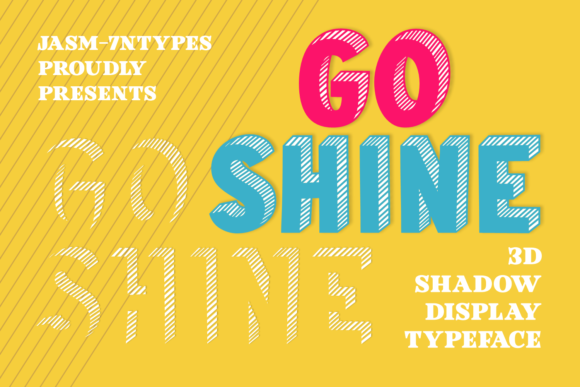
**Enter the realm of visual brilliance with Go Shine Font, a treasure trove of typographic delight!**
In a world of ordinary fonts, Go Shine Font emerges as a resplendent beacon of creativity, a symphony of visual aesthetics that will captivate your senses and leave you breathless. This extraordinary display font, meticulously crafted by the visionary artisans at 7NTypes, is more than just a collection of characters; it's an experience that ignites the imagination and sets your designs ablaze with radiant brilliance.
Go Shine Font is not merely a font; it's a gateway to a world of limitless creative possibilities. Its bold and colorful strokes dance across the page, evoking a sense of exuberance and joy that will elevate your designs to new heights of visual splendor. With its inherent versatility, this font seamlessly adapts to a myriad of creative endeavors, from eye-catching headlines that demand attention to captivating social media graphics that leave a lasting impression.
Unleash the boundless potential of Go Shine Font and witness the transformation of your creative vision into a breathtaking reality. Let your imagination soar as you explore the infinite possibilities that this font presents, knowing that your designs will be imbued with an aura of sophistication and brilliance.
So, embark on this extraordinary typographic journey with Go Shine Font and elevate your creative endeavors to unprecedented levels of excellence. Experience the thrill of crafting designs that radiate with captivating elegance and leave an indelible mark on the minds of your audience. Go Shine Font awaits your creative touch, ready to ignite the flames of inspiration and illuminate your path to typographic greatness.